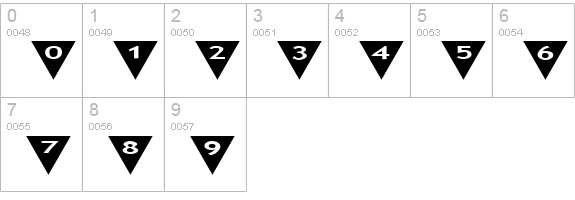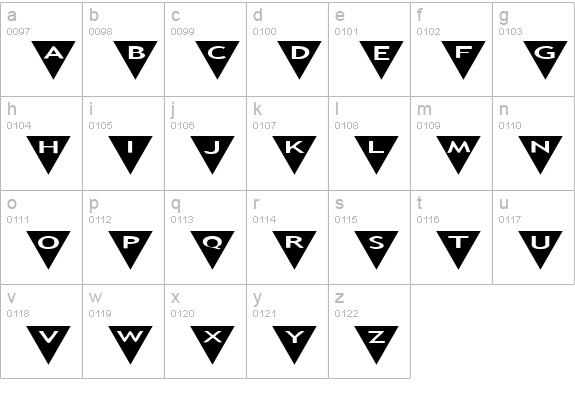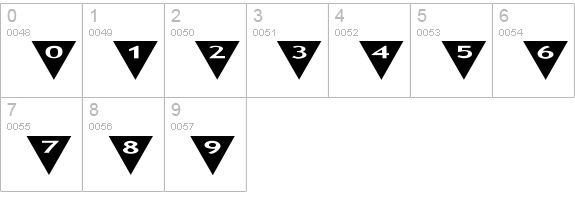
The AlphaShapes Triangles 2 font is a modern and sleek typeface that features sharp triangular shapes for a bold and dynamic look. With its clean lines and geometric design, this font is perfect for creating eye-catching titles and headlines. The font is versatile and can be used for a variety of design projects, from posters to logos to website headers. Best of all, the AlphaShapes Triangles 2 font is available for free download at FontsMarket.com. This means you can easily add this stylish font to your collection without any cost. Don't miss out on the opportunity to enhance your designs with this unique and striking typeface. Download the AlphaShapes Triangles 2 font today and take your projects to the next level!